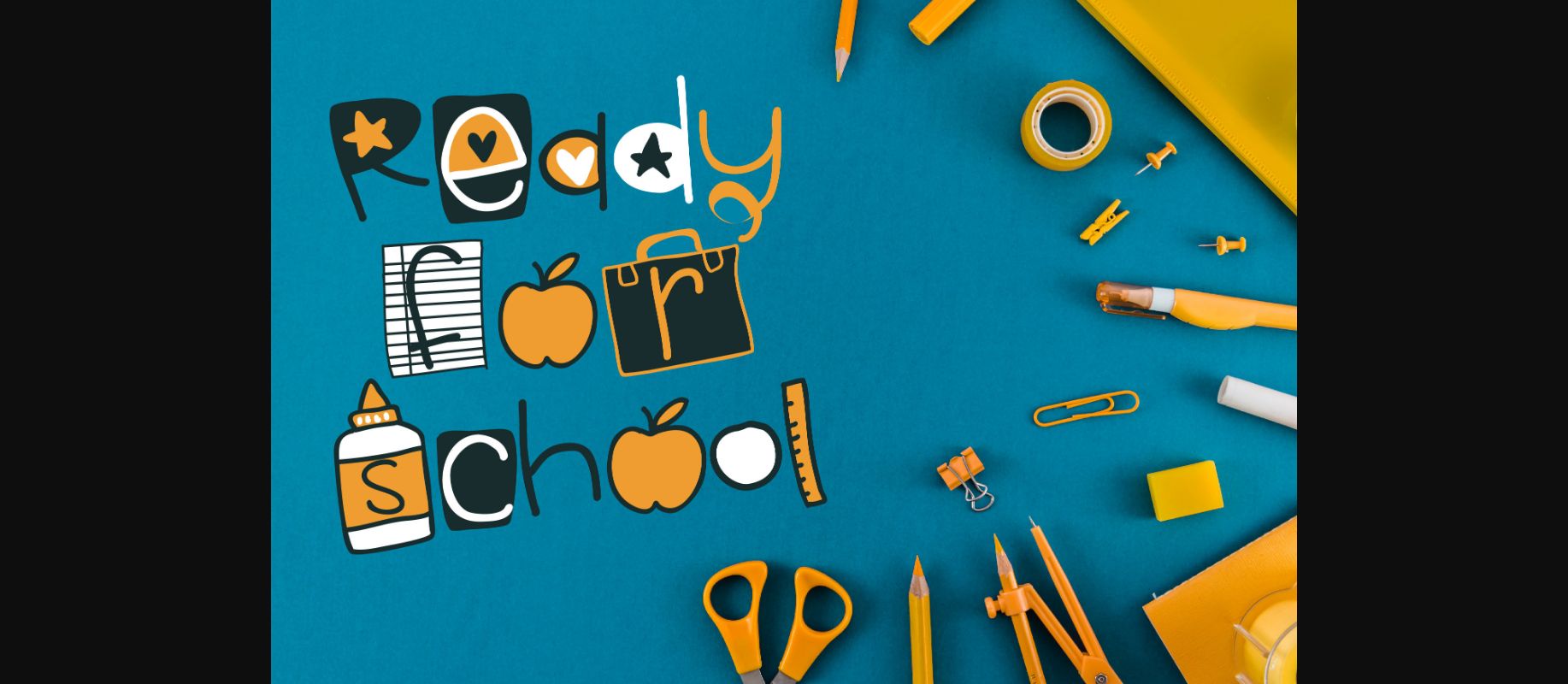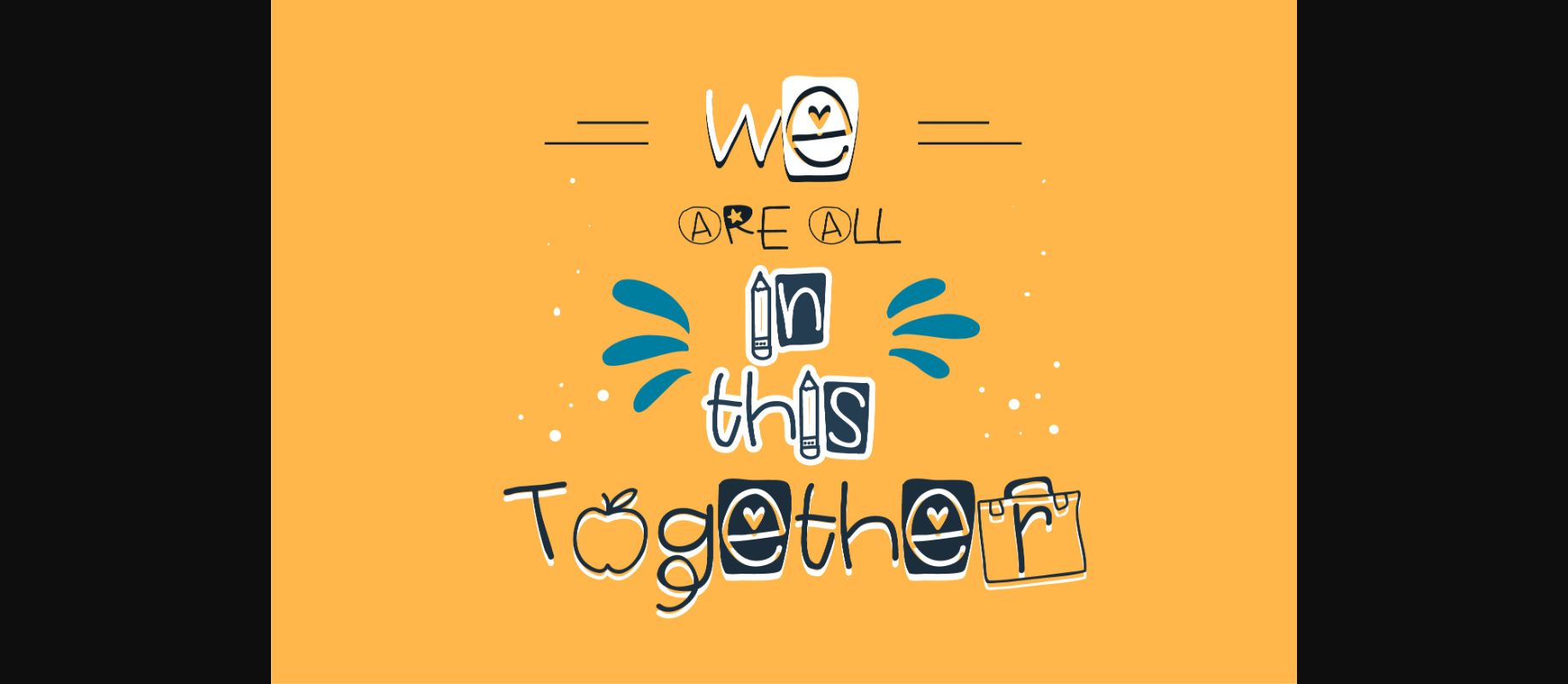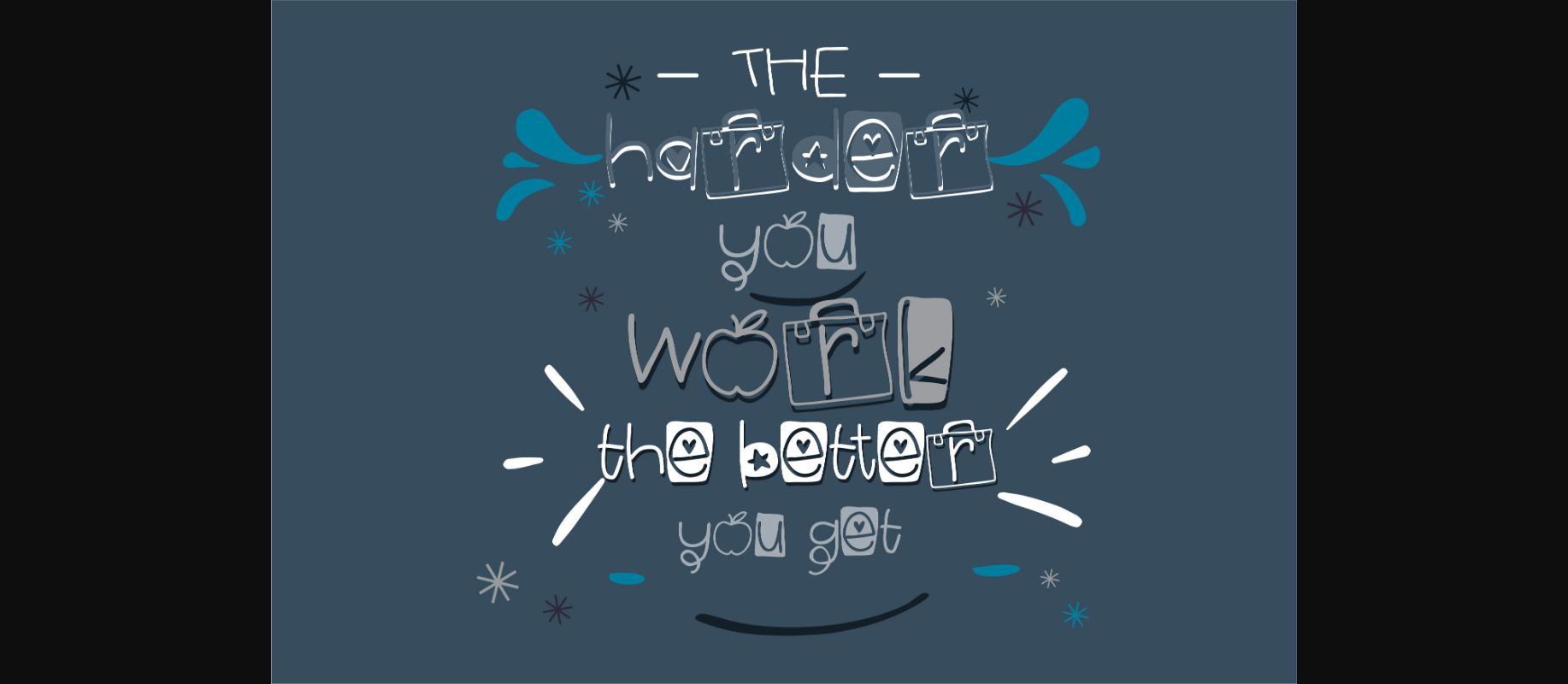
About Ready for School Font
This hand-written decorative font has a very youthful, child-like print with various school items represented. It will add lots of fun to your creations!